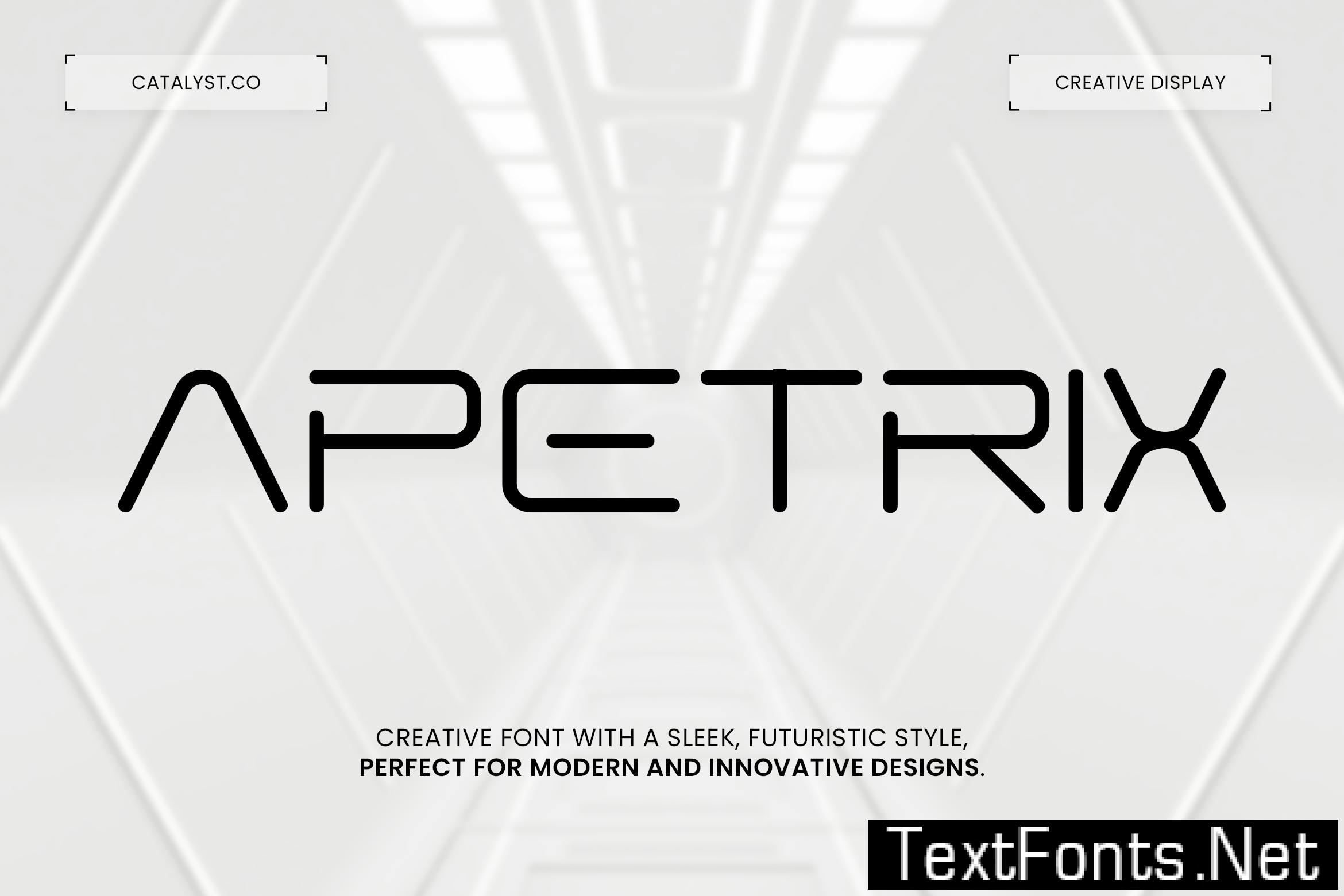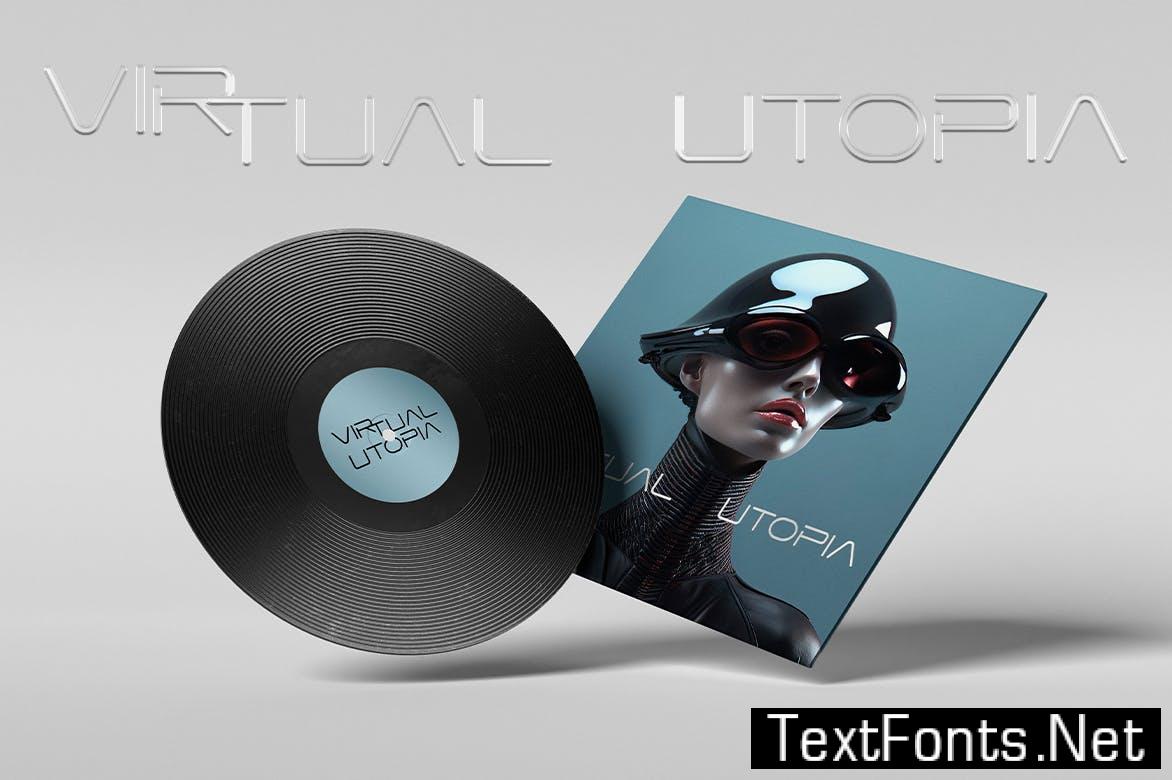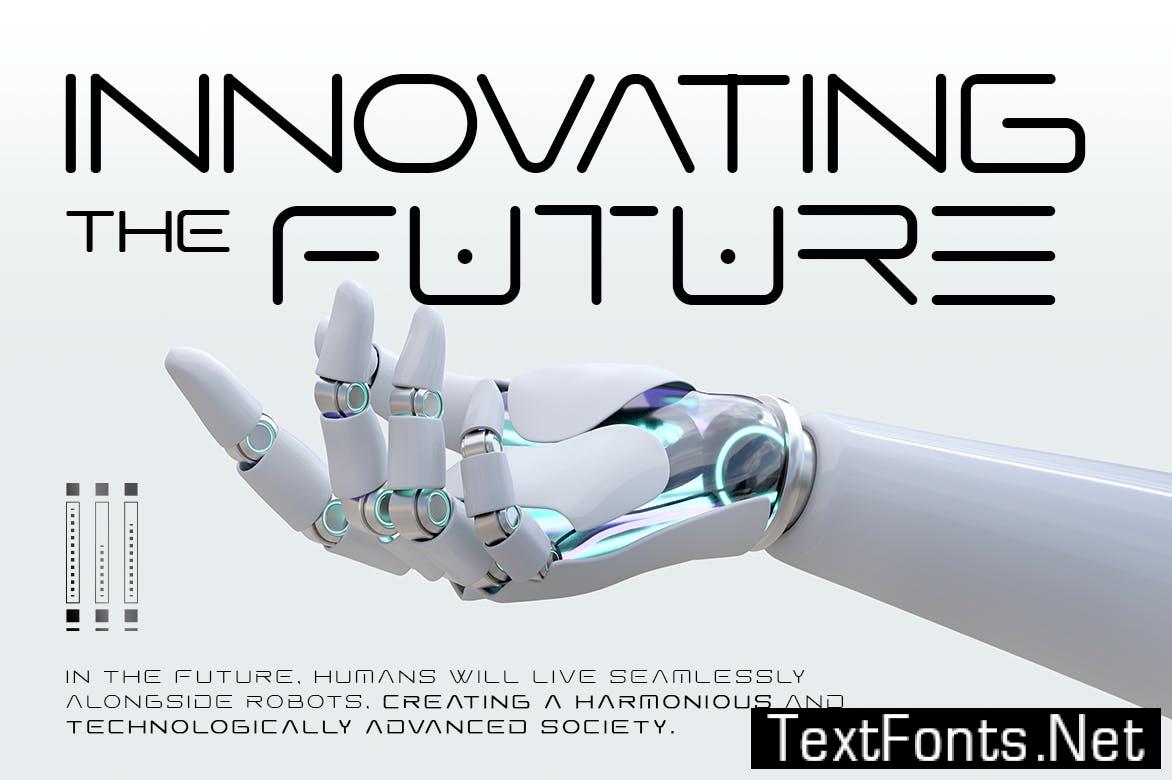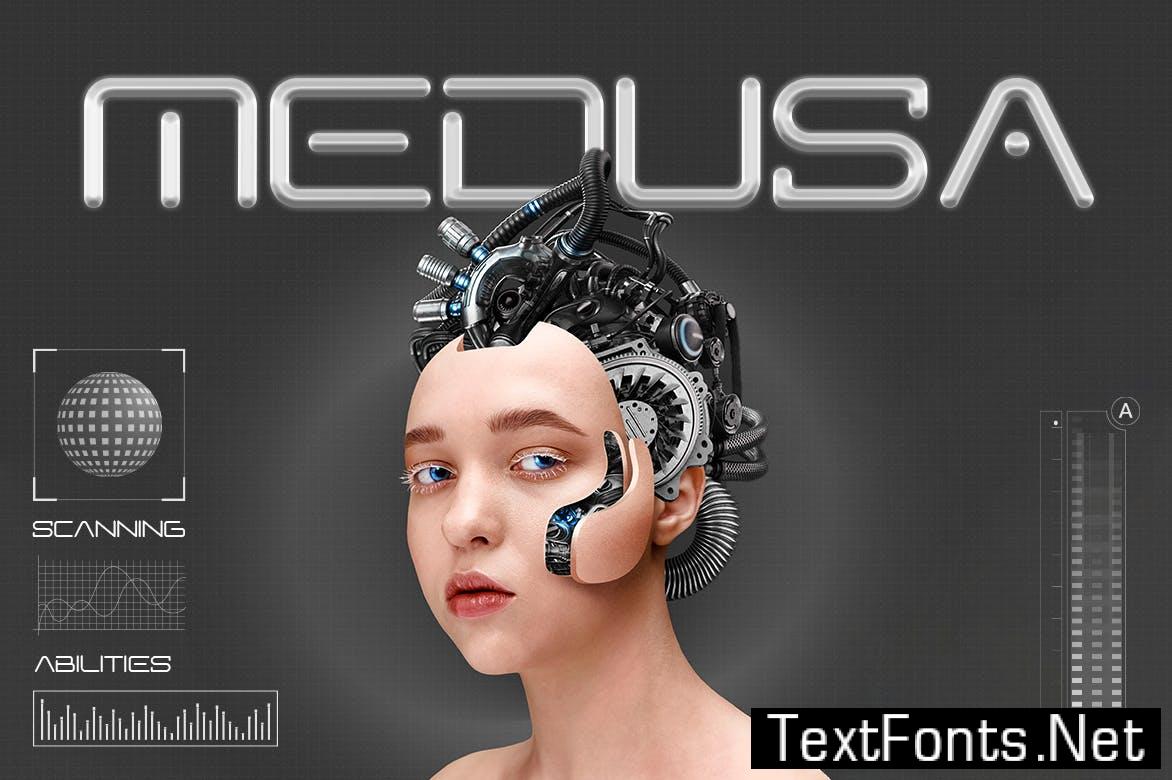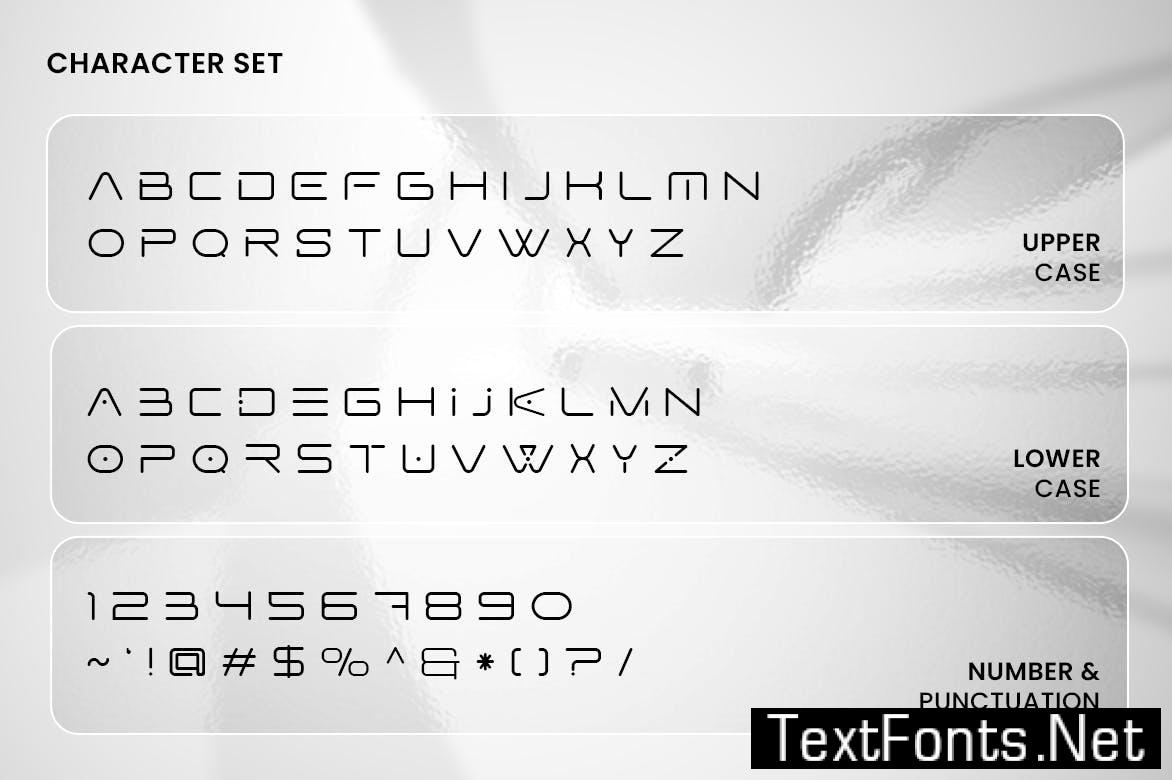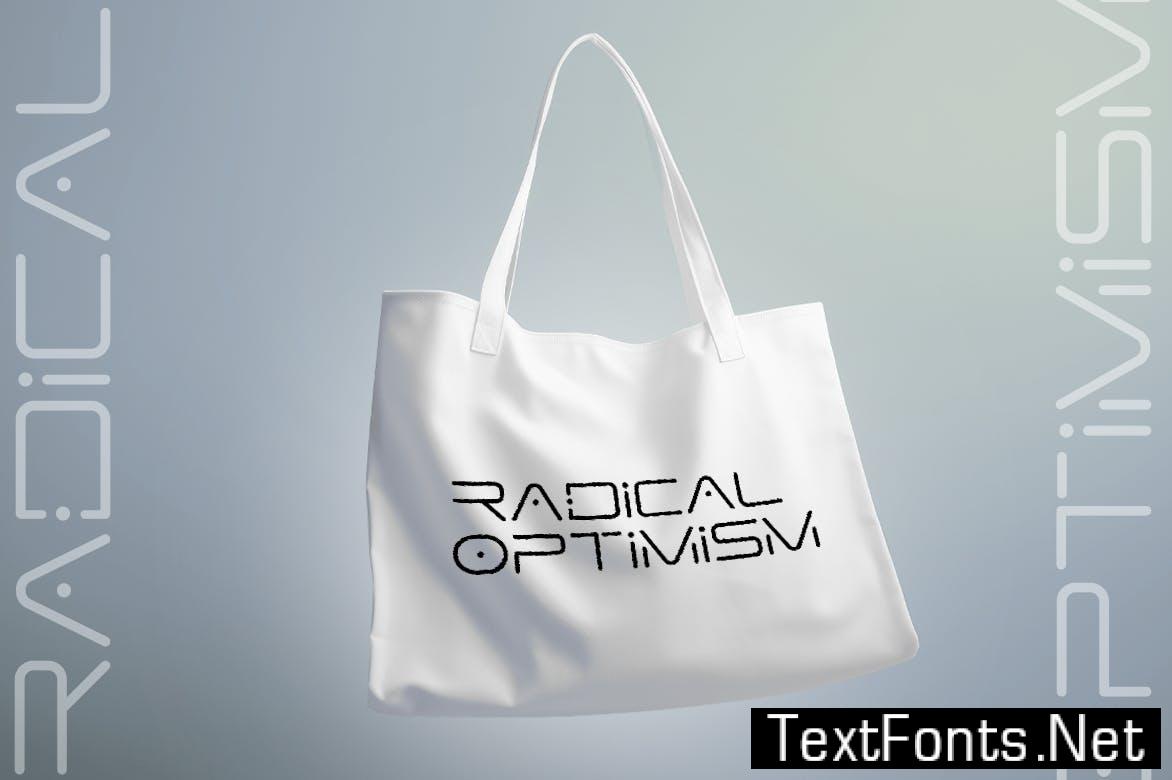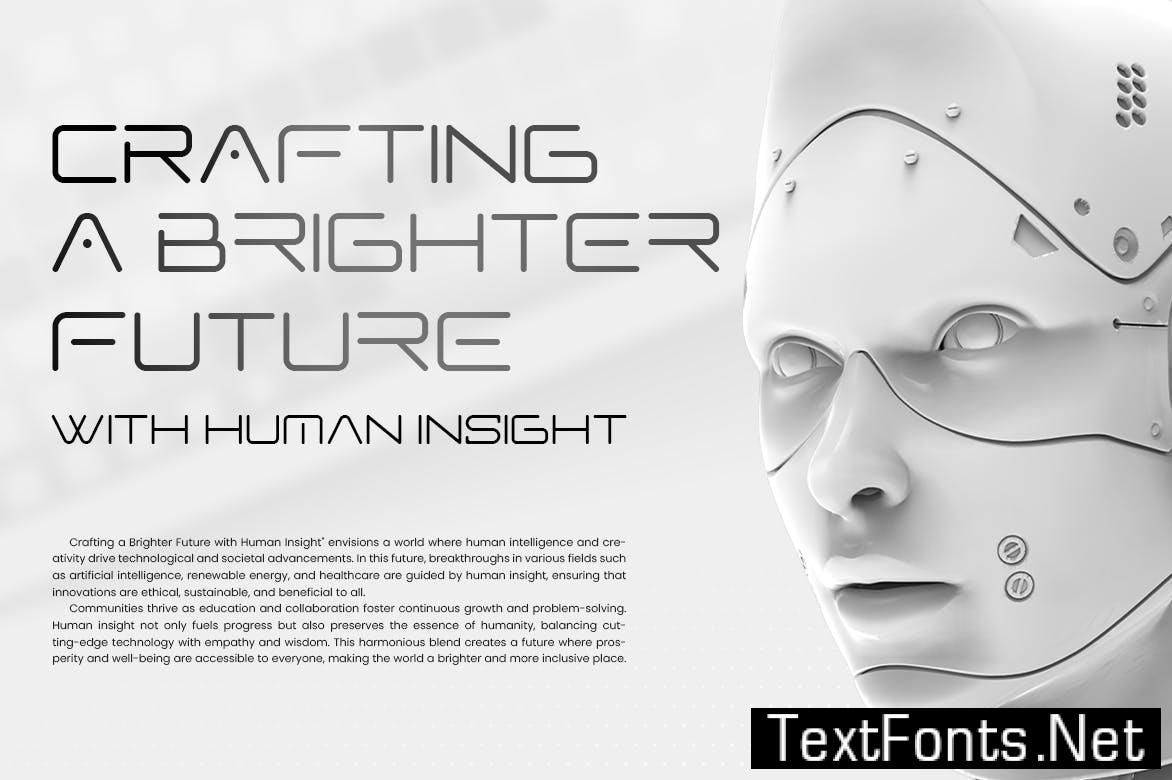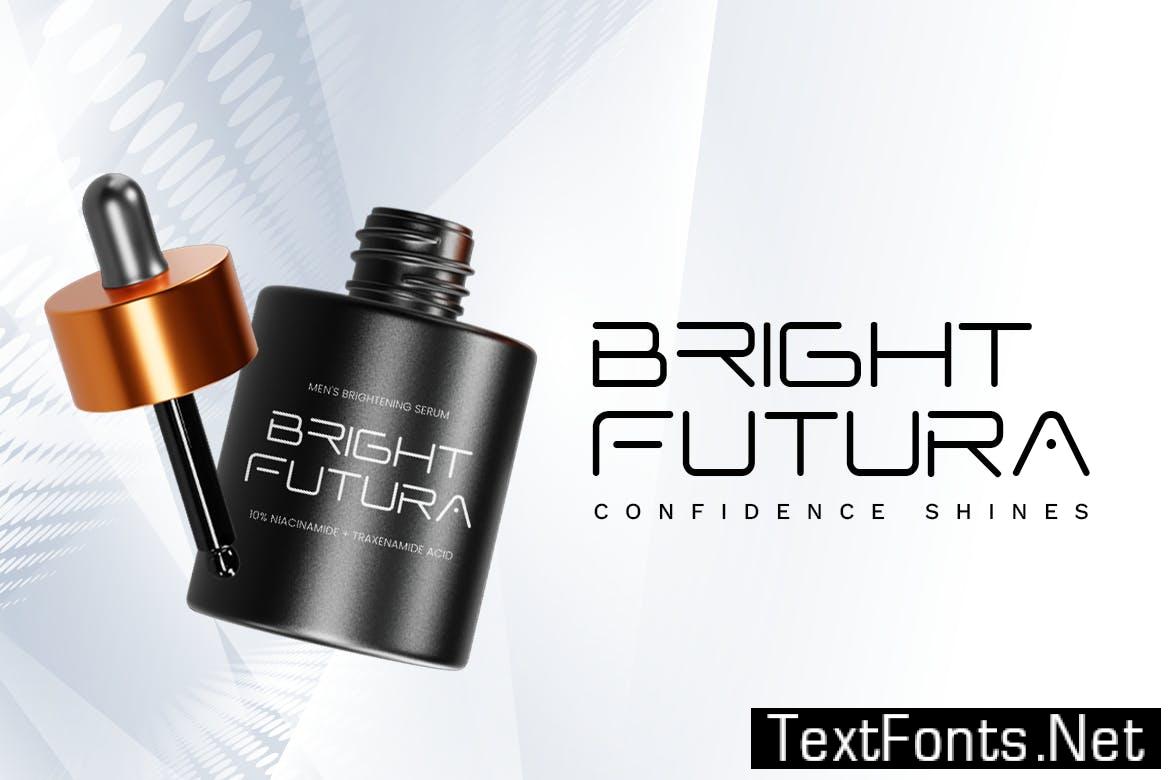
**Apetrix Futuristic Display Font** typeface excellent used for the manufacture quote text, logotype, header magazine, and many more.
**Main Features**
* Uppercase & Lowercase
* Ligatures & Alternate
* Numeral & Punctuations